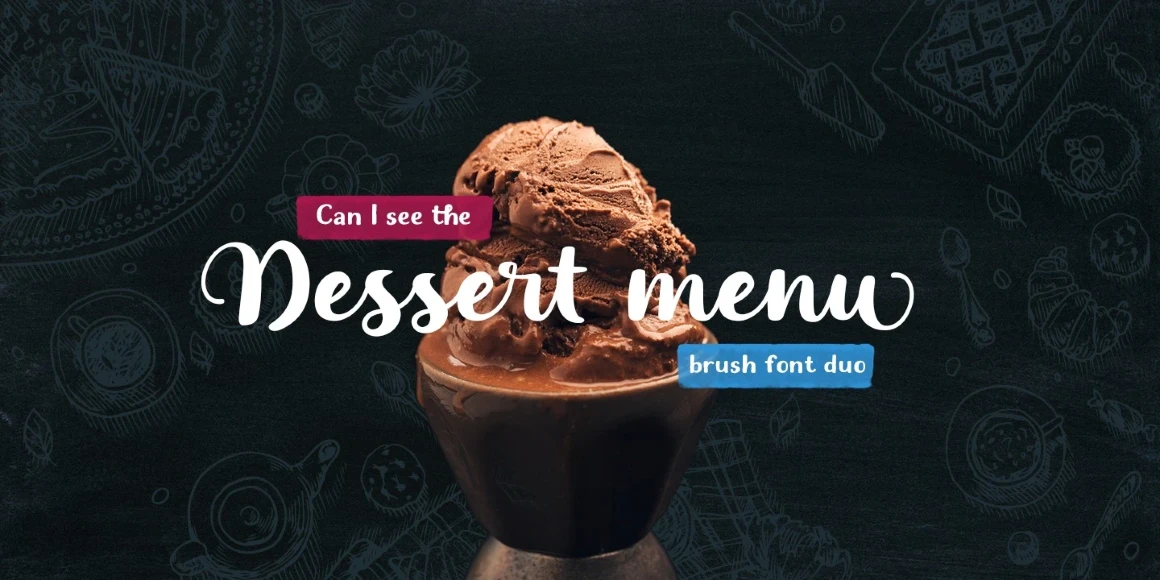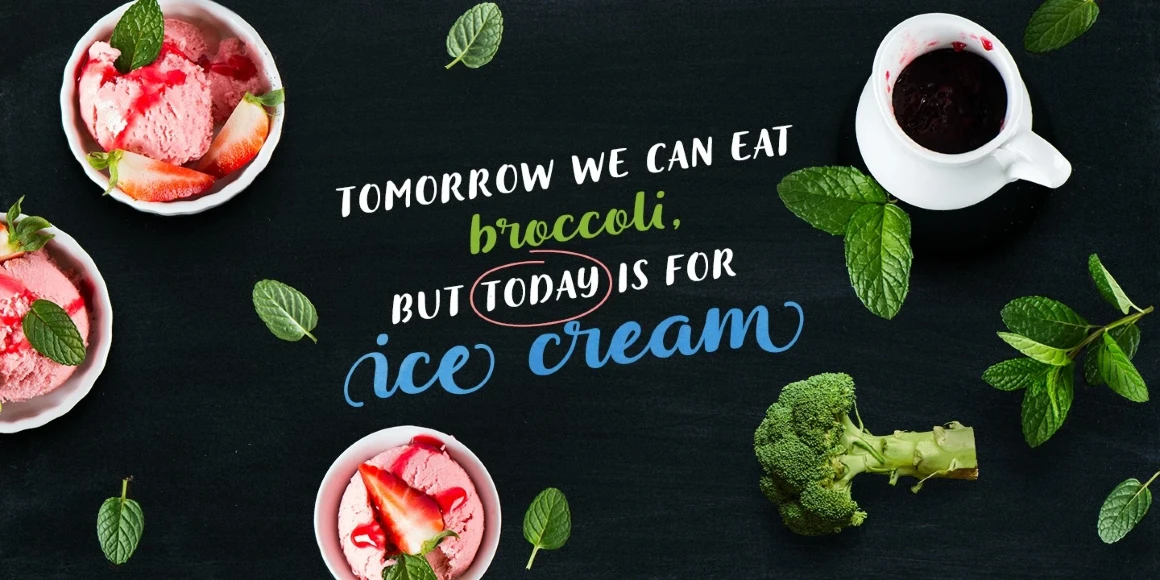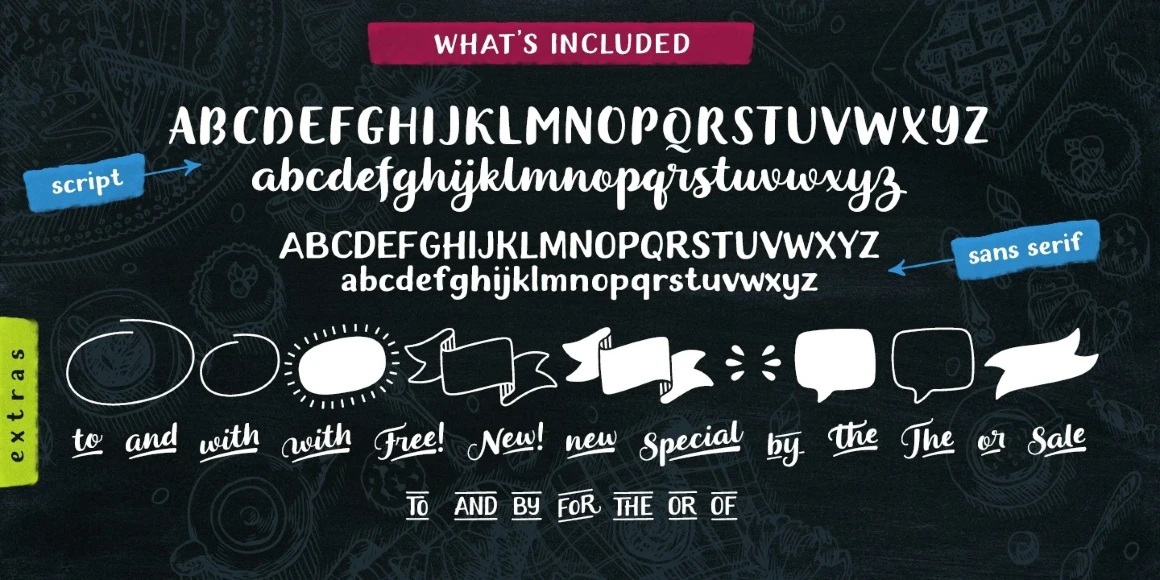
Dessert Menu Sans
By Elena Genova
Dessert Menu Sans Regular
Dessert Menu Sans is a 100% handmade brush-style design. Each letter was carefully traced by hand to keep the authenticity of hand-lettering alive in your projects. It is not only adorable, but it is also readable — use it in text sizes and display sizes! Because of the squat skeleton, you can use the caps as small caps for the Dessert Menu Script or as a text companion. Don’t miss the handful of alternates and catchphrases for adding even more detail to your typographic work.